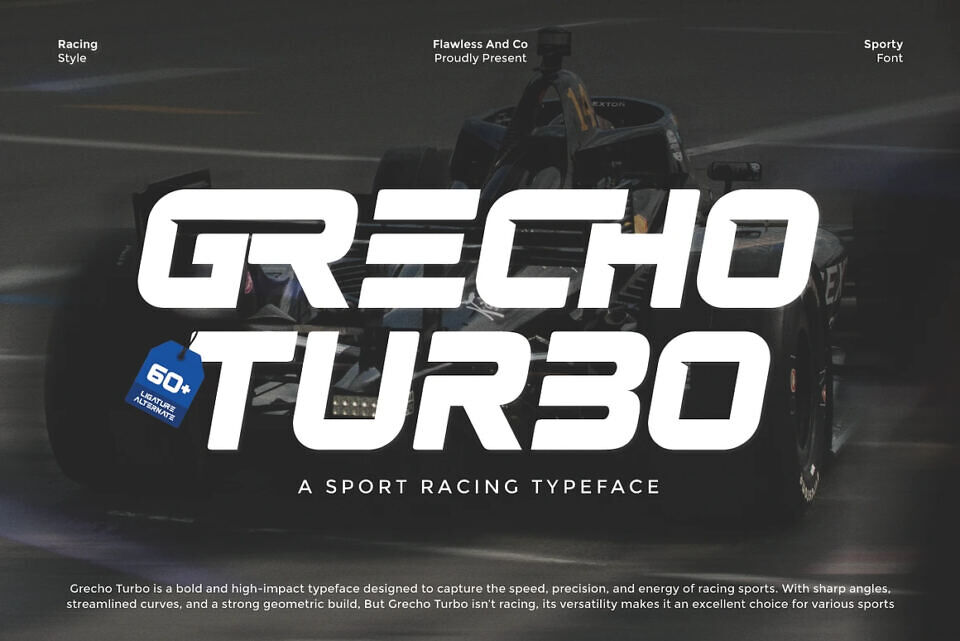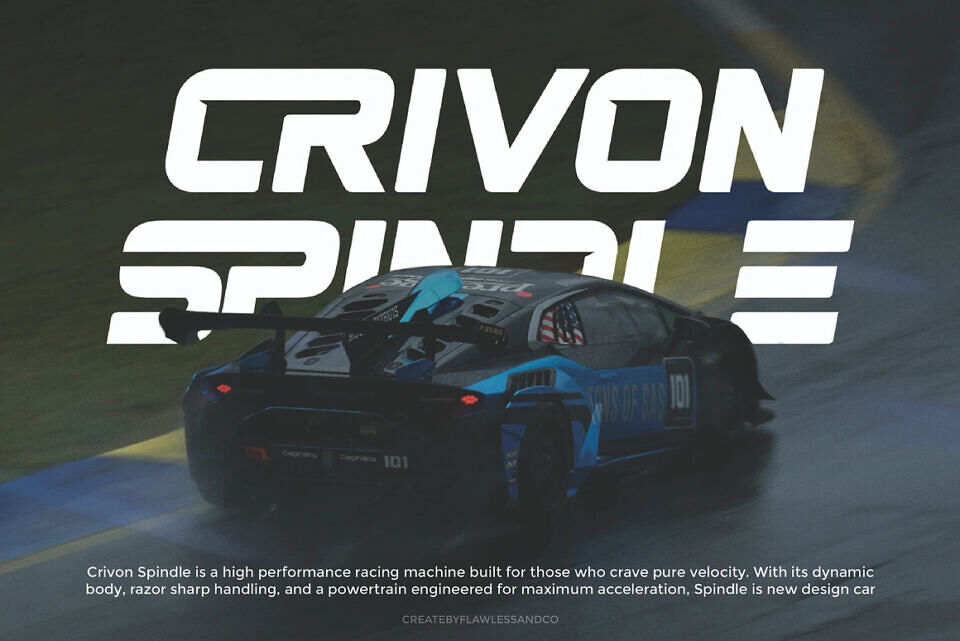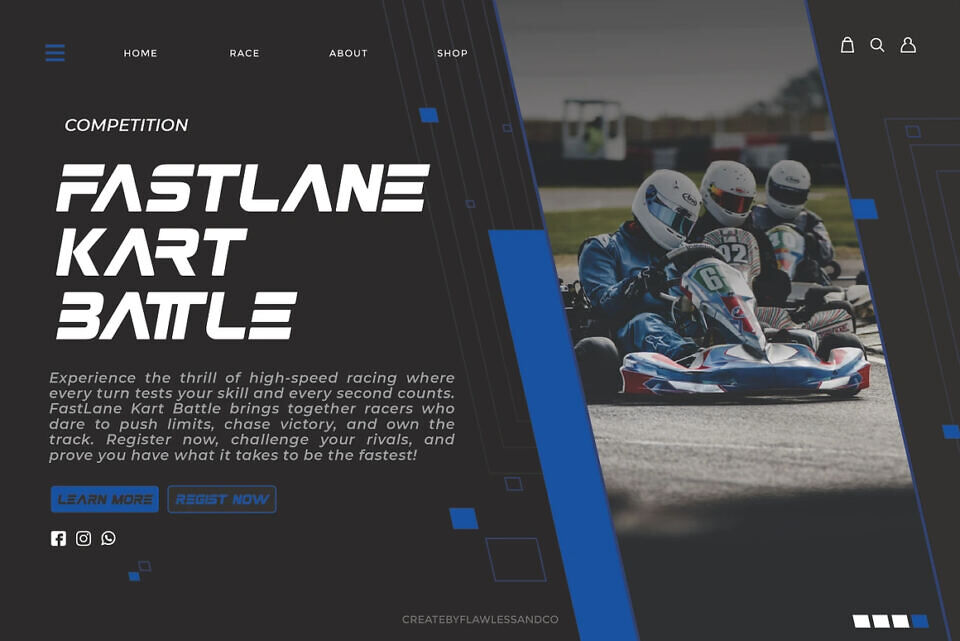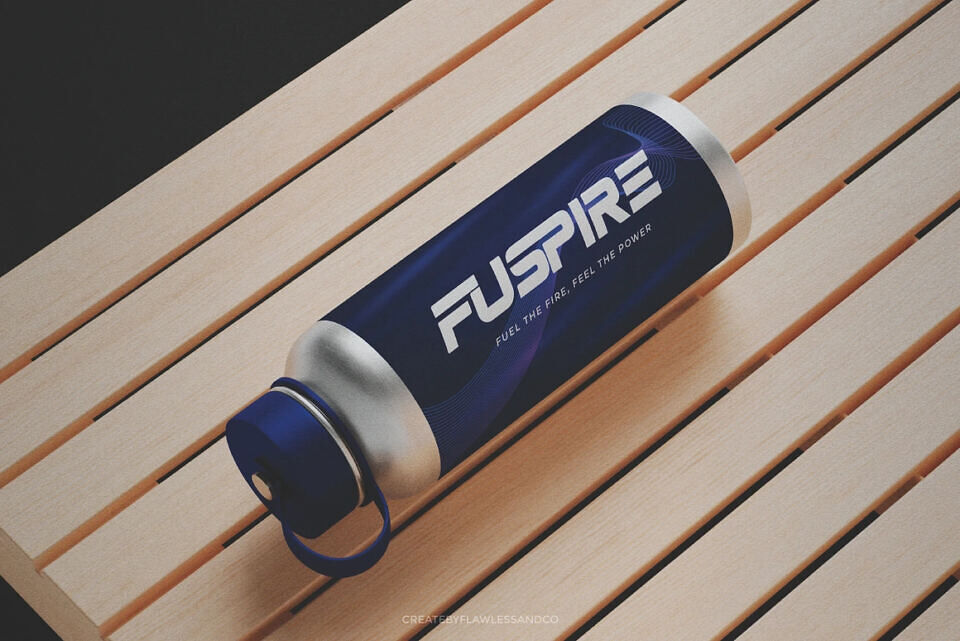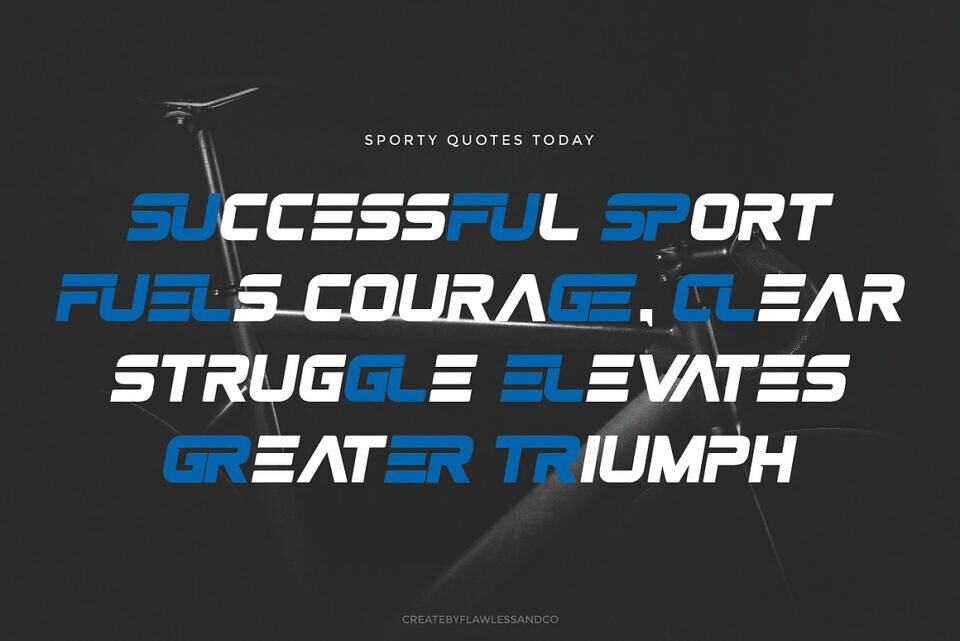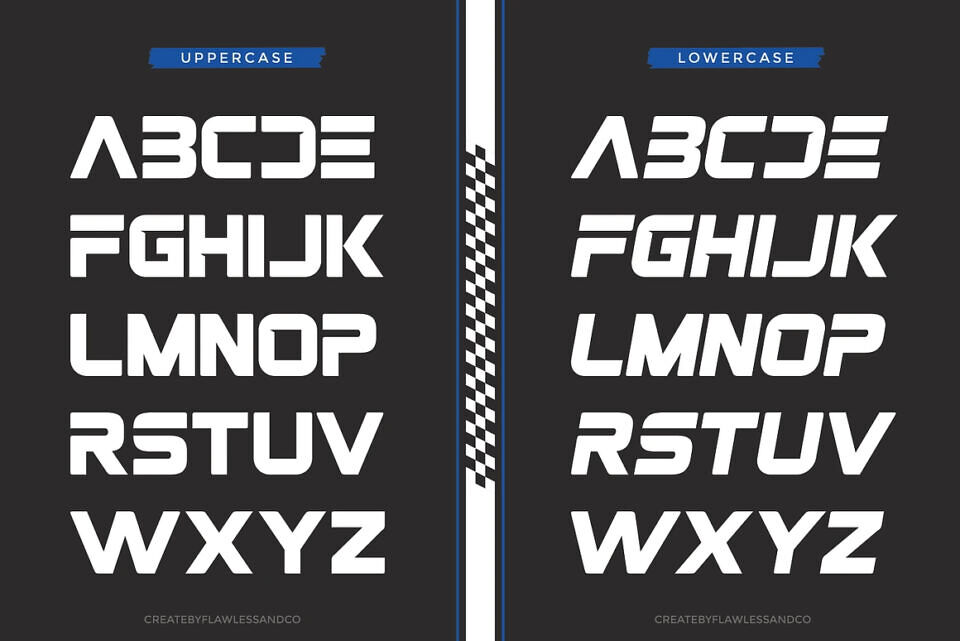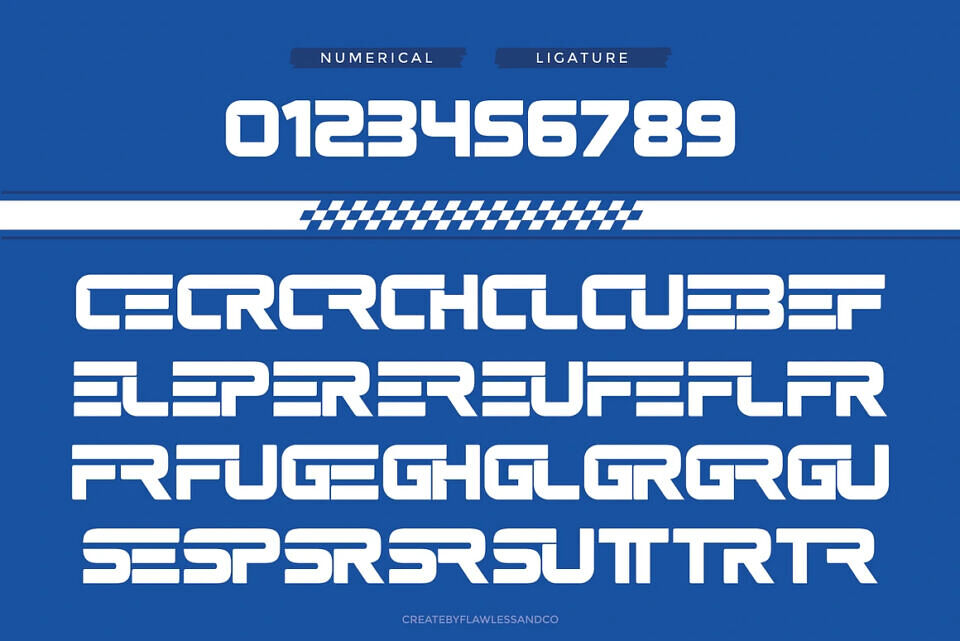
Grecho Turbo Font
Grecho Turbo is a bold and powerful sport font designed to capture the speed, precision, and dynamic energy of modern athletics. With its sharp edges, aerodynamic shapes, and strong geometric structure, this typeface radiates confidence and impact.
Whether for racing, sports branding, fitness merchandise, or bold headlines, Grecho Turbo brings unstoppable energy to your designs. Its versatility ensures it looks just as strong off the track — making it a go-to choice for any project that demands movement, strength, and high-impact style.